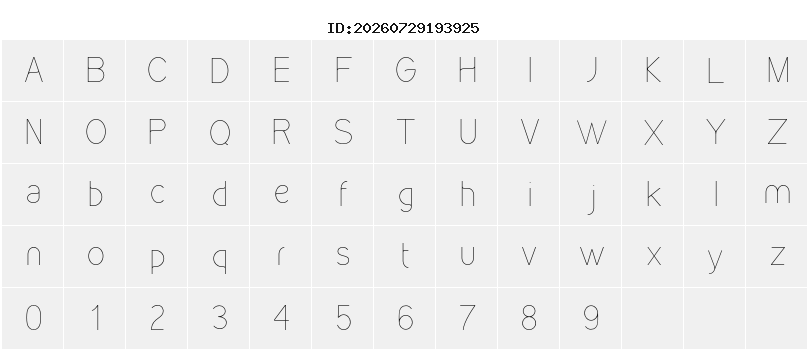
• Font Name: Kirvy
• Font Style: Thin
• Full Font Name: Kirvy Thin
• PostScript Name: Kirvy-Thin
About Kirvy.otf
Kirvy.otf is a modern, elegant sans-serif font designed for ultimate readability and visual harmony. Perfect for branding, headlines, web design, and print materials.